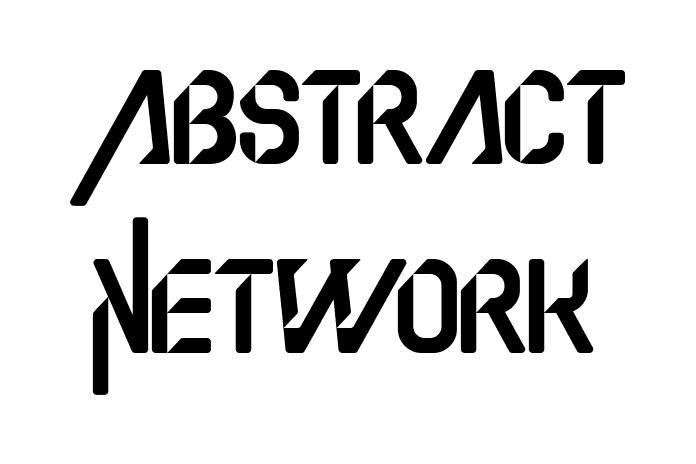
PROXON
Introducing the modern PROXON Font, is a cool and modern techno looking display Font This font is ideal for writing web designs, business cards, or pretty much anything else that requires a unique touch, this font designed by is available for free download and personal use.
Typeface classification Techno